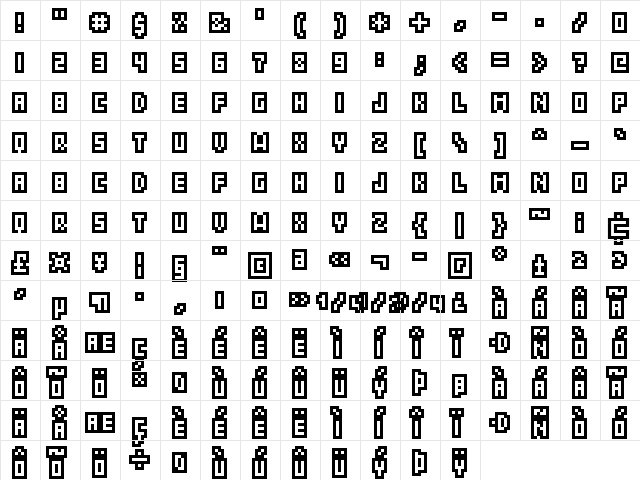
Grixel Acme 5 CompCapsOX Regular Font Preview
Grixel Acme 5 CompCapsOX Regular
Grixel Acme 5 CompCapsOX Regular Font Details
| Foundry | Nikos Giannakopoulos |
Design Context for Grixel Acme 5 CompCapsOX Typeface
Grixel Acme 5 CompCapsOX offers clean, dependable letterforms without strong stylistic allegiance, making it a practical choice for designers who need flexibility.